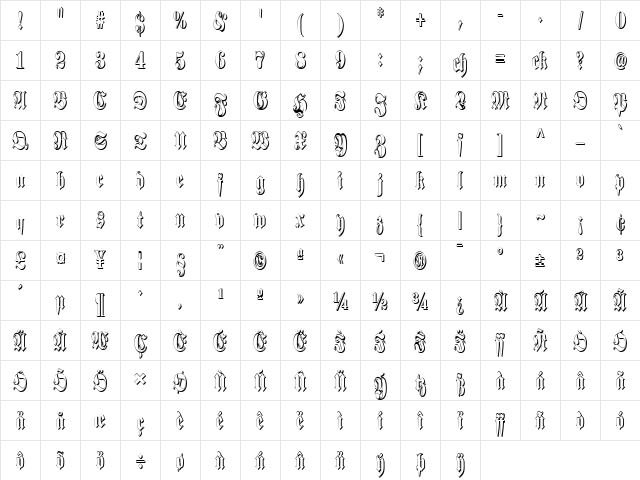
Schmalfette Fraktur Schattiert Regular Free Font
Schmalfette Fraktur Schattiert Regular
Design Context for Schmalfette Fraktur Schattiert
Schmalfette Fraktur Schattiert draws on the rich tradition of blackletter calligraphy, with dense, angular strokes that evoke medieval manuscripts and old-world craftsmanship.
Font Pairing: Pair with a clean neutral sans-serif for body copy to let Schmalfette Fraktur Schattiert's character lead without overwhelming the composition.
Pro Tip: Reserve Schmalfette Fraktur Schattiert for display and logo use - pair it with a clean sans-serif for body copy to prevent the composition from feeling oppressive.